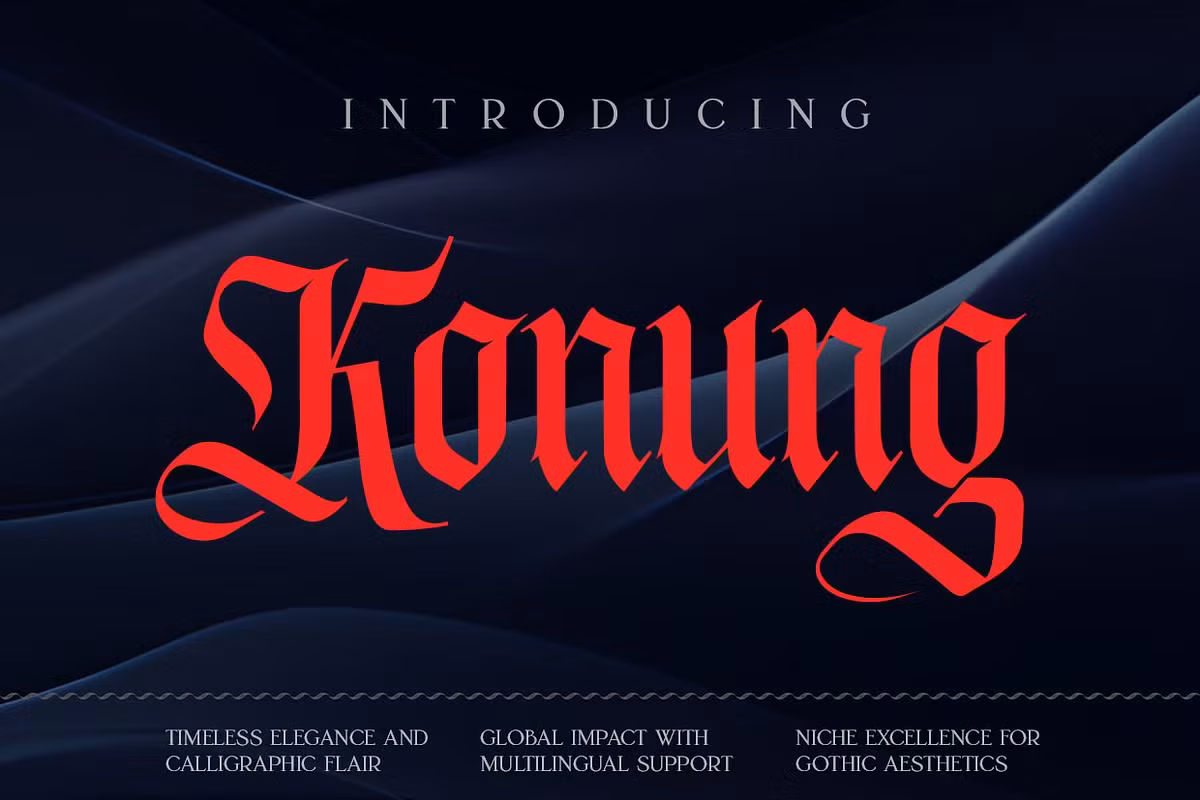
Konung Display Gothic Font Free Download
Rule your design kingdom with the Konung Display Gothic Font Free Download — a bold, medieval-inspired typeface built for epic impact. With its dramatic serifs, sharp angles, and gothic undertones, Konung is perfect for fantasy book covers, game titles, posters, metal band logos, and historic-themed branding.
This font carries the weight of ancient times while remaining sharp and clear for modern applications. Whether you're crafting a dark fantasy world or a brand that exudes strength and heritage, Konung delivers a regal tone with a bold, unforgettable presence.